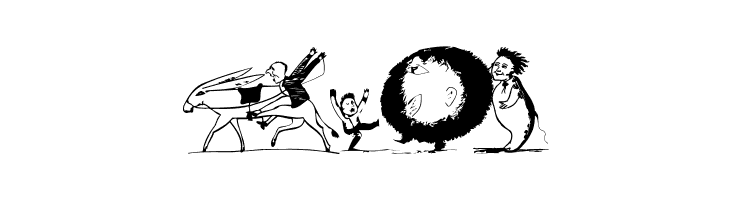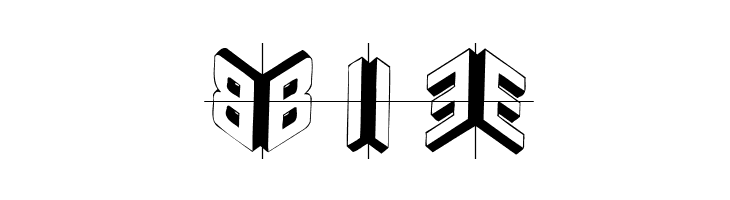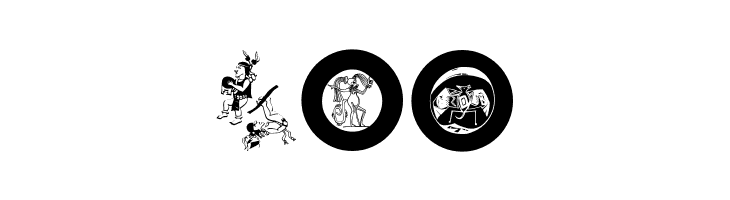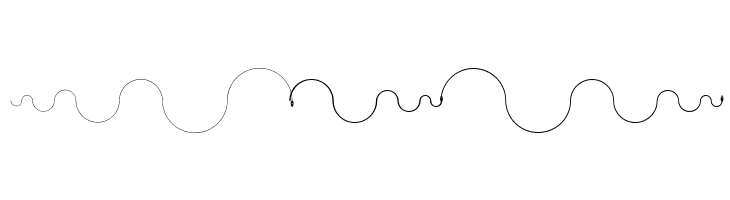
• DueTresQuattro
A pictogram font featuring animal and insect silhouettes for each character.
• Dunstall
( Roger White - web.archive.org/web/20120416090521/www.rogersfonts.org.uk/ )
A bold, gothic-inspired font with sharp, angular edges and a modern twist.
• DuodezInitialen
A bold, decorative stencil-style font with enclosed characters.
• DuploSketchesPlus
A bold, geometric font with a three-dimensional, futuristic design.
• DynamicBeings
• Dyonisius
A bold, angular font with a geometric and edgy style.
• EarlyAmericans
A decorative font with intricate illustrations inspired by early American art.
• EarlyMidage
A decorative font with medieval-themed illustrations within each character.
• EarlySurrealism1
Surrealist dingbat font with imaginative, hand-drawn illustrations.
• Earth